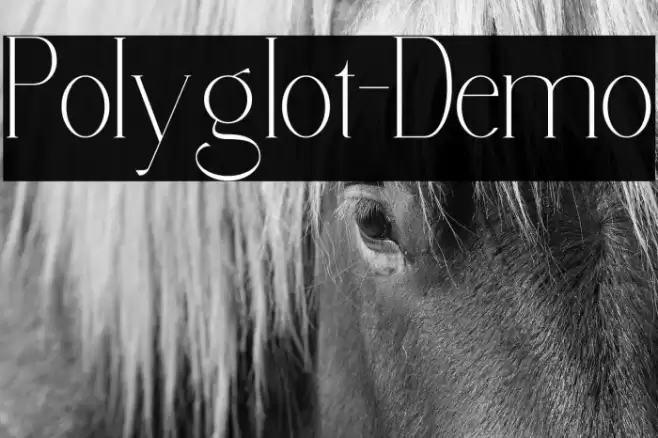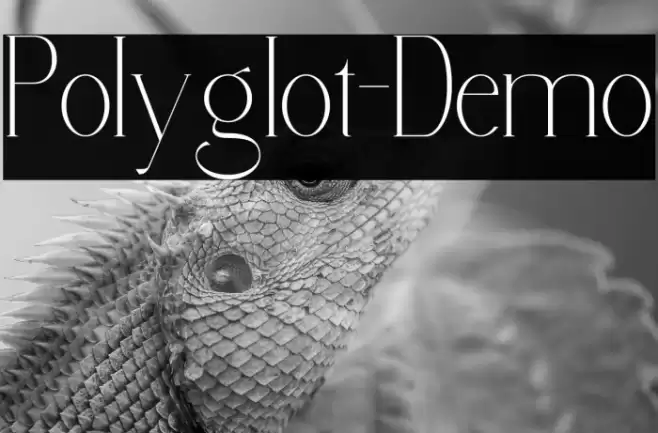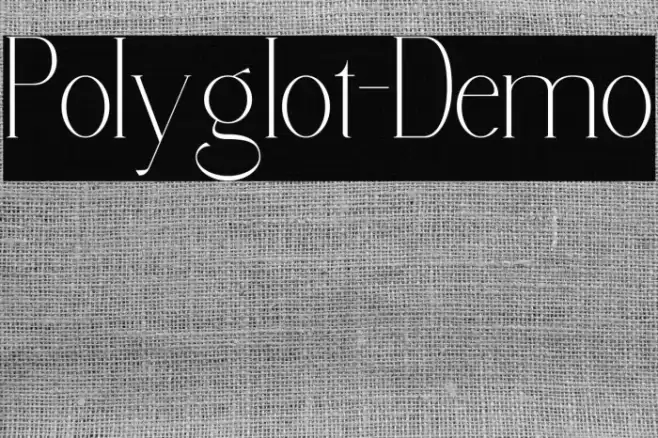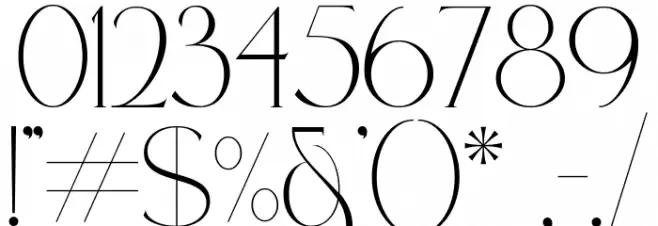
Polyglot-Demo Font
Polyglot-Demo Description
This font features a modern and elegant design with a high contrast between thick and thin strokes, giving it a sophisticated appearance. The uppercase letters are tall and slender, while the lowercase letters maintain a consistent style with a slightly more rounded form. The numerals are distinct and maintain the same high contrast, ensuring readability. Special characters are designed with the same attention to detail, making them visually cohesive with the rest of the font. The overall style is sleek and contemporary, suitable for a variety of design applications.
A modern, high-contrast font with elegant, slender characters from Uncategorized fonts.
- Proposed Projects: Ideal for luxury branding, fashion magazines, editorial design, and high-end product packaging.